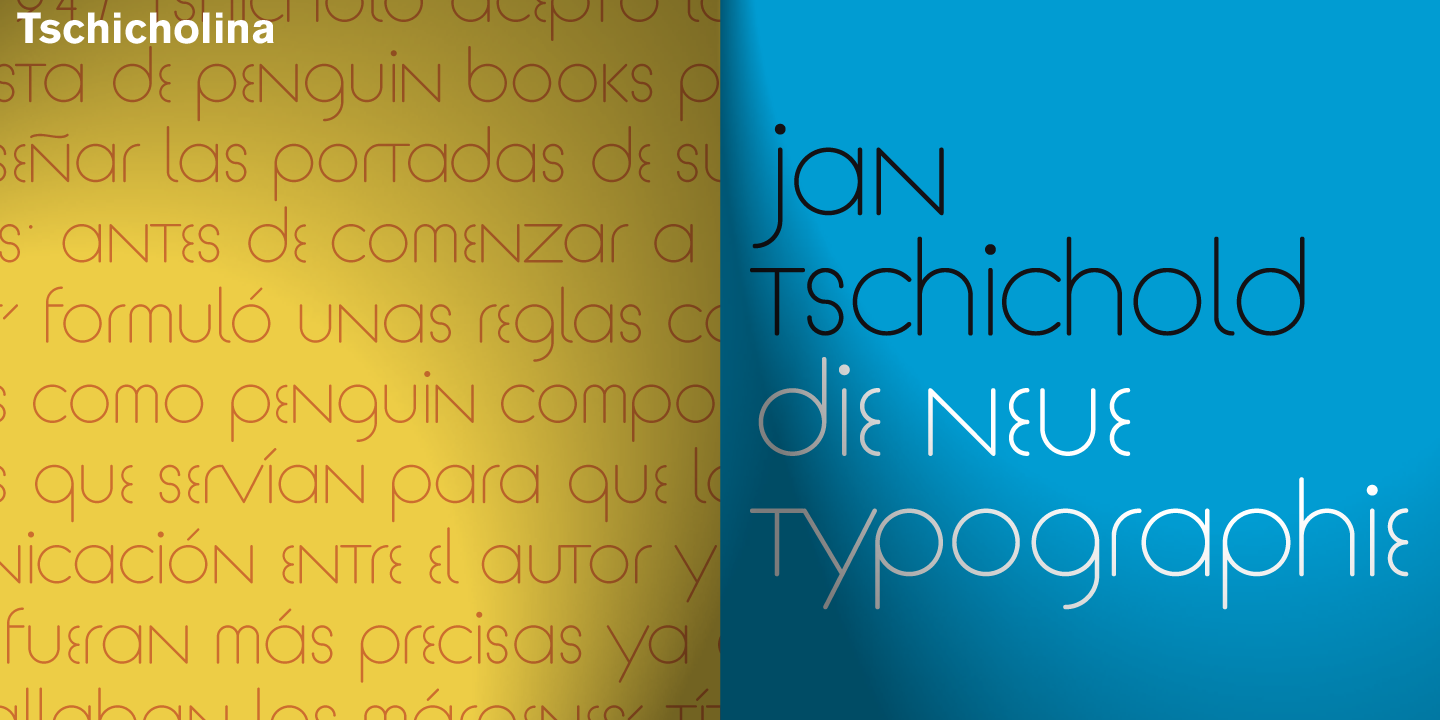
Tschicholina Font is a strikingly unique and often experimental display typeface that defies conventional typographic norms. Characterized by its distinctive and sometimes unconventional letterforms, it's designed to grab attention and evoke a strong artistic statement. Imagine it perfect for avant-garde art exhibition titles, edgy music album covers, alternative fashion branding, innovative editorial layouts, expressive poster designs, or unique personal portfolios. This font excels in environments where visual impact, creative individuality, and a memorable, unconventional aesthetic are paramount. It’s particularly effective for conveying artistic freedom, a rebellious spirit, and a bold departure from the ordinary, ensuring your message not only stands out but also challenges perceptions and sparks conversation.
What makes Tschicholina Font truly exciting is its fearless exploration of form and its ability to transform text into a piece of visual art. It often incorporates unusual angles, unexpected curves, or abstract elements that give each character a unique, almost sculptural quality. This font isn't just about displaying text; it's about pushing creative boundaries, injecting your designs with a sense of raw energy and unbridled imagination. It has a powerful ability to feel both incredibly distinct and surprisingly versatile in the right creative hands, making it an ideal tool for designers who want their work to convey innovation, artistic expression, and a truly memorable visual impact. Tschicholina Font empowers brands and creatives to project an image that is daring, imaginative, and unforgettable.
The Tschicholina Font family typically focuses on delivering its unique display style with maximum visual impact. You'll often find it available in a single, powerful weight that best showcases its distinctive design elements and experimental nature. While it might not feature a wide range of weights or conventional italic styles, some versions could include stylistic alternatives for certain characters or ligatures that further emphasize its unique and often abstract appearance, allowing for even more customized typographic compositions. The comprehensive character set generally covers standard Latin characters, numbers, and a selection of punctuation, ensuring that Tschicholina Font Free Download is suitable for a wide array of creative and commercial applications where a bold and experimental statement is desired. Its memorable and artistic presence ensures that any project featuring Tschicholina Font will leave a strong, lasting impression.